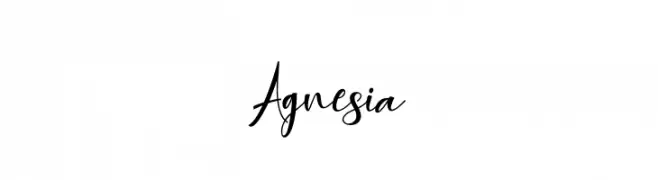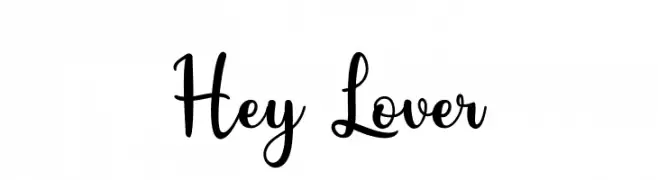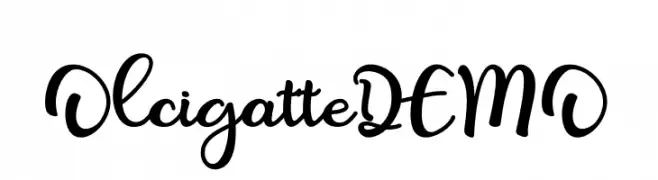
A dynamic and flowing script font with elegant cursive letterforms.
A bold, cursive font with dynamic, sweeping strokes and fluid connections.
A sophisticated and flowing script font with elegant cursive letterforms.
A dynamic and fluid script font with smooth, flowing lines and a lively appearance.
A bold, flowing script font with a modern and elegant style.
A bold, cursive typeface with elegant, flowing connections and classic calligraphic style.
A bold, flowing script font with elegant curves and a modern twist.
A fluid and elegant script font with a handwritten style.
A bold, cursive font with sweeping curves and expressive flourishes.
An elegant script font with flowing, cursive strokes and graceful curves.
A dotted line font mimicking handwriting practice sheets, ideal for educational use.
A bold, cursive font with smooth, flowing lines and seamless connections.
A dotted line font resembling connect-the-dots, ideal for educational and playful designs.
A classic cursive script font with smooth, flowing lines and elegant connections.
An elegant script font with flowing curves and ornate details, perfect for sophisticated designs.
An elegant, cursive font with a sophisticated, handwritten style.
A dynamic and elegant script font with fluid, cursive letterforms.
An elegant, italic script font with flowing, cursive characters.
An ornate and flowing script font with elaborate swirls and elegant lines.
A bold, energetic script font with sweeping strokes and dynamic flair.
An ornate script font with elaborate swirls and flourishes.
A bold, rustic font with a hand-crafted, Western-inspired style.
An ornate, vintage script font with elegant flourishes and a handwritten feel.
A decorative font with letters entwined in plant and flower motifs.